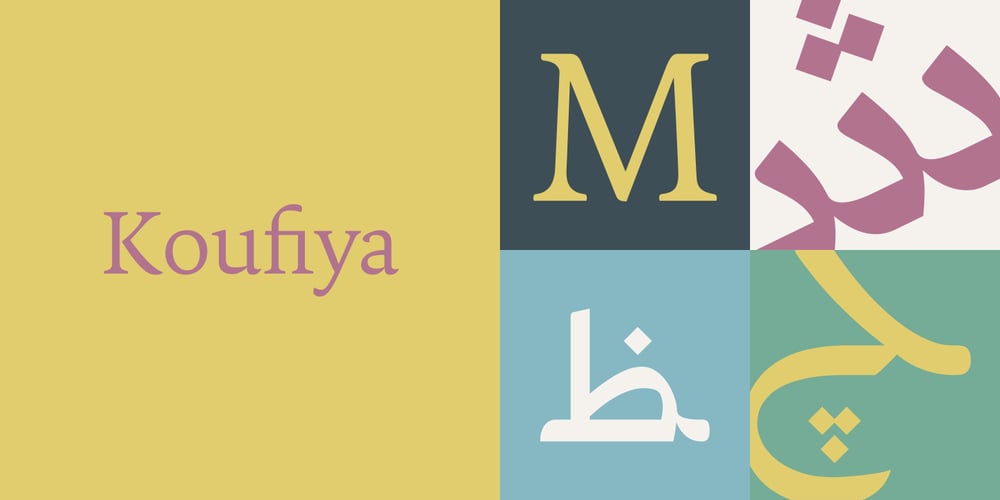
Koufiya
Koufiya Font Family was designed by Nadine Chahine and published by Linotype. Koufiya contains 2 styles and family package options. Koufiya is designed by Nadine Chahine in 2003 as part of her MA project at the University of Reading, UK and later released by Linotype in 2007. It is the first typeface to include a matching Arabic and Latin designed by the same designer at the same time with the intention of creating a harmonious balance between the two scripts. The Arabic part is based on the Early Kufi style popular in the 7th to 10th century AD. It is characterized by a strong horizontal baseline, horizontal stacking order, clear and open counters, and a general open feeling. Though based on the earliest styles on Arabic manuscript, the design paradoxically appears quite modern and fresh. The Latin part of Koufiya recalls a Dutch influence in its shallow top arches and rather squarish proportions. Both Arabic and Latin parts have been carefully designed to maintain the same optical size, weight, and rhythm. However, no sacrifices were made to make them appear closer to each other. They are designed so that they work well together on the printed page, and to make sure that the two scripts are harmonious when they are mixed together even if within the same paragraph. The font includes support for Arabic, Persian, and Urdu. It also includes proportional and tabular numerals for the supported languages.